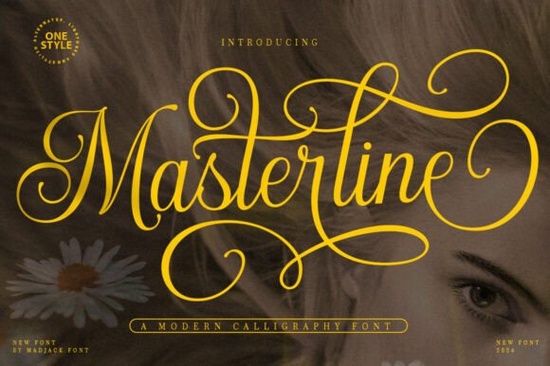
If you're looking for a versatile and elegant font to add to your design toolkit, the Masterline Calligraphy Font is a great choice. This modern calligraphy design is both casual and beautiful, featuring swashes that can enhance a wide range of projects.
Why Choose Masterline Calligraphy Font?
Masterline Calligraphy Font is perfect for designers, crafters, and small businesses who need a font that can adapt to various creative needs. Whether you're working on wedding invitations, product packaging, or even book covers, this font offers a unique and stylish touch.
What Makes Masterline Calligraphy Font Stand Out?
The key feature of Masterline Calligraphy Font is its versatility. The regular style is clean and legible, making it ideal for both digital and print use. The swashes add an artistic flair, allowing you to create more dynamic and eye-catching designs. Here are some specific ways you can use this font:
- Logos and Branding: Create a memorable and elegant logo for your business or client.
- Wedding Invitations: Add a touch of sophistication to wedding invitations and other event stationery.
- Product Packaging: Enhance the look of your product packaging with a stylish and readable font.
- Book Covers: Design book covers that stand out with a mix of elegance and readability.
- Signage and Labels: Use it for signage, labels, and other printed materials to make a lasting impression.
How Does Masterline Compare to Other Script Fonts?
When compared to other script fonts, Masterline Calligraphy Font stands out for its balance of elegance and simplicity. For example, if you've used Florist Perfect Font or Wednesday Font, you'll find that Masterline Calligraphy Font offers a similar level of beauty but with a more casual and approachable feel. It's also a great alternative to Le Mores Signature Font and Lim Siendra Font, which are known for their more formal and intricate designs.
Where Can You Use Masterline Calligraphy Font?
One of the best things about Masterline Calligraphy Font is its flexibility. You can use it in a variety of projects, from digital designs to physical products. Here are some specific examples:
- Digital Designs: Incorporate it into your website, social media graphics, and email newsletters.
- Print-on-Demand Products: Use it for t-shirts, mugs, and other merchandise to create a high-end, personalized look.
- Stationery and Invitations: Design custom stationery, thank-you cards, and party invitations with a touch of elegance.
- Branding Materials: Create business cards, brochures, and other marketing collateral that reflect your brand's personality.
How to Get the Most Out of Masterline Calligraphy Font
To get the most out of Masterline Calligraphy Font, consider the following tips:
- Experiment with Swashes: Use the swashes to add a decorative element to your designs. They can be particularly effective in headlines and logos.
- Combine with Sans Serifs: Pair Masterline Calligraphy Font with a clean sans serif font for a balanced and professional look.
- Test Different Sizes: Try using the font at different sizes to see how it works in various contexts. This can help you find the perfect fit for your project.
- Use for Signatures: If you need a signature-style font, Masterline Calligraphy Font can work well. It has a natural, handwritten feel that can add authenticity to your designs.
Final Thoughts
Masterline Calligraphy Font is a valuable addition to any designer's collection. Its versatility and elegance make it suitable for a wide range of projects, from digital designs to physical products. If you're looking for a font that can add a touch of class and creativity to your work, give Masterline Calligraphy Font a try.